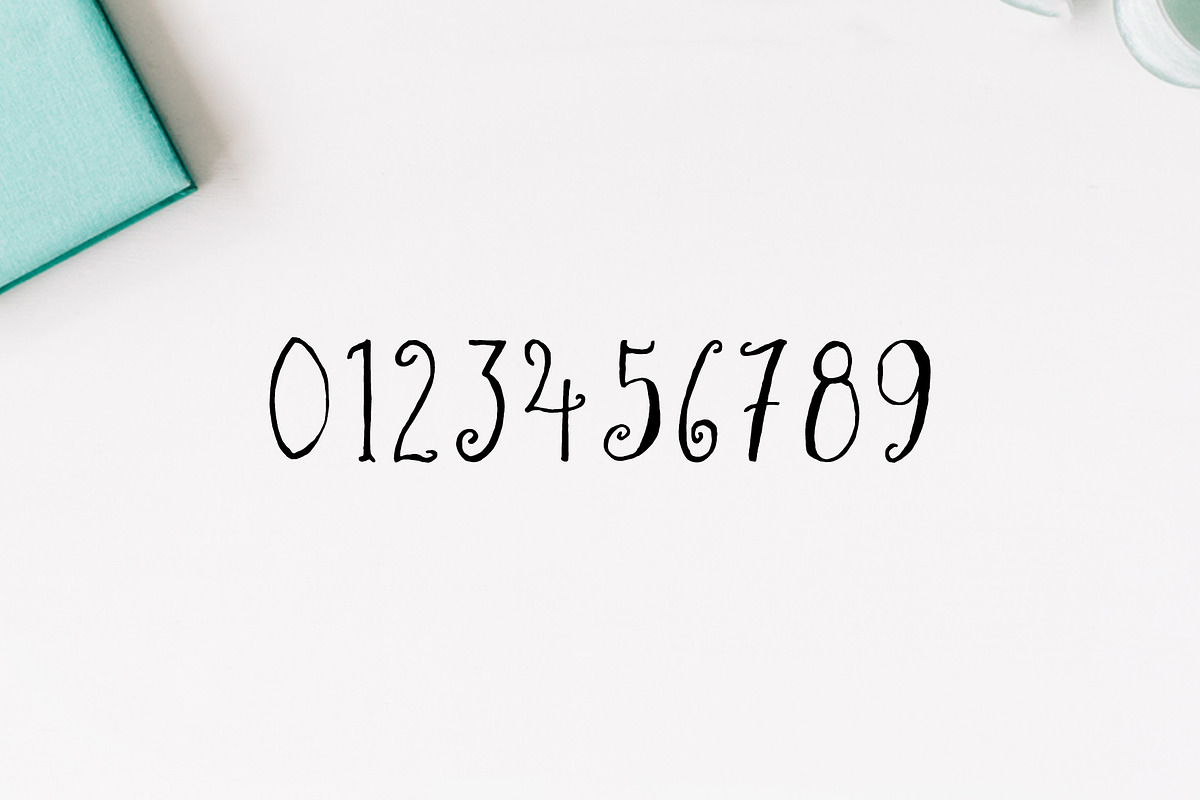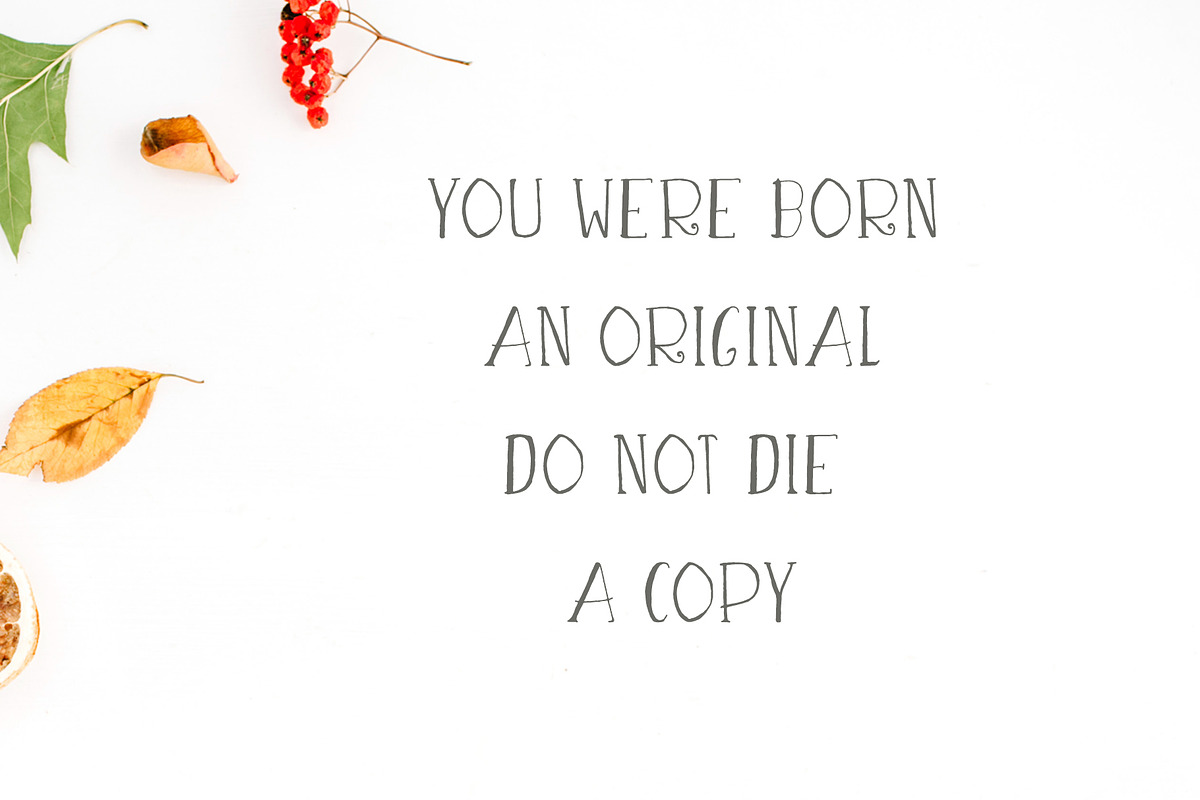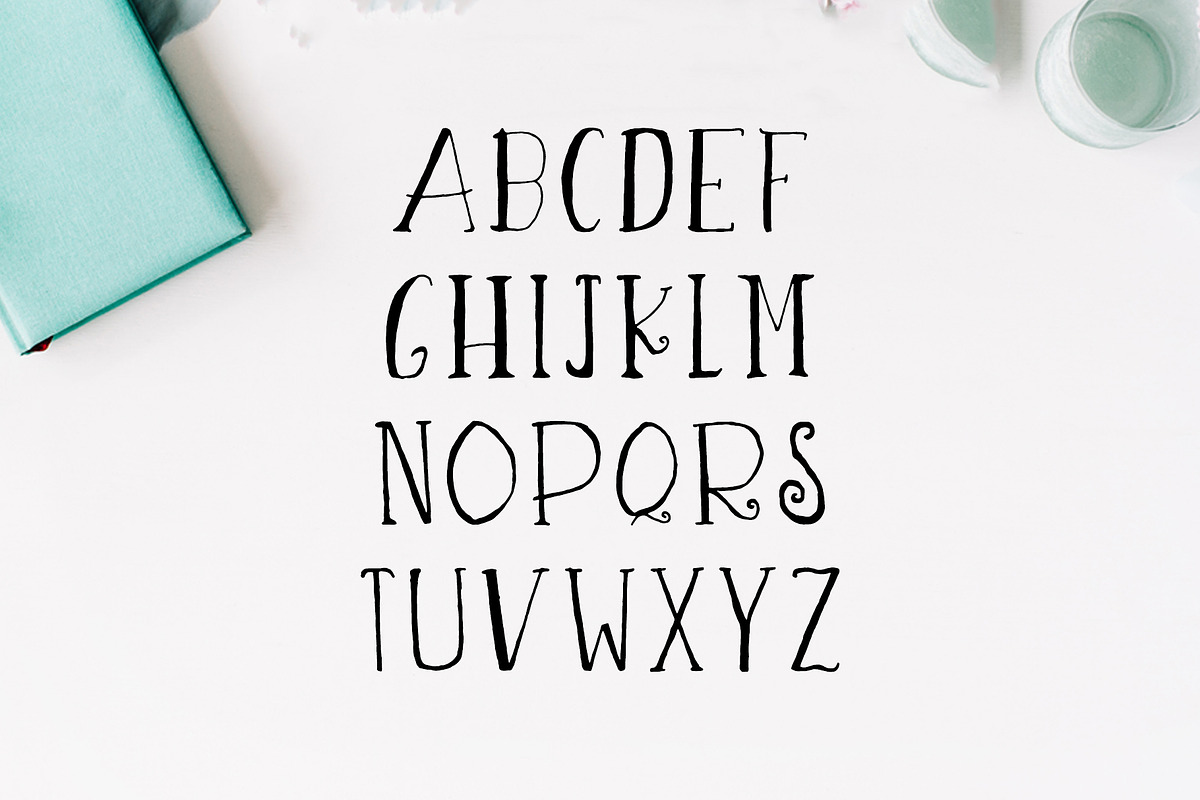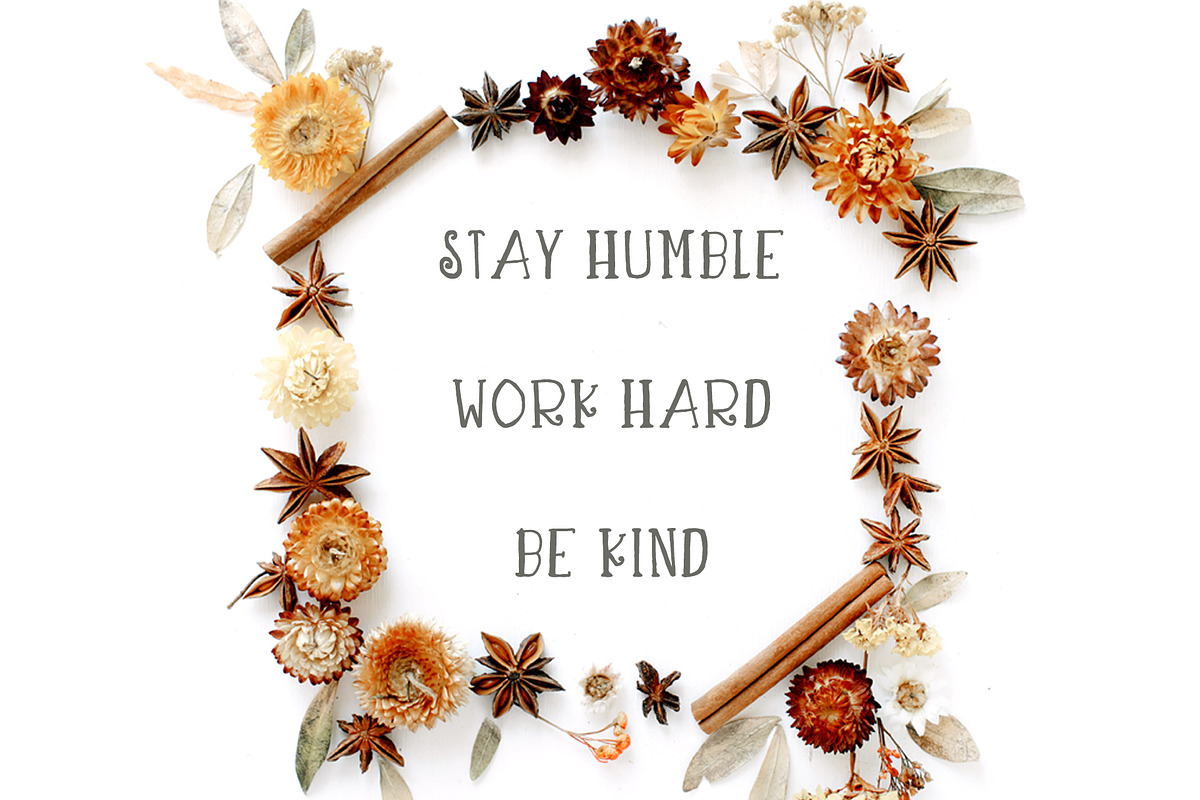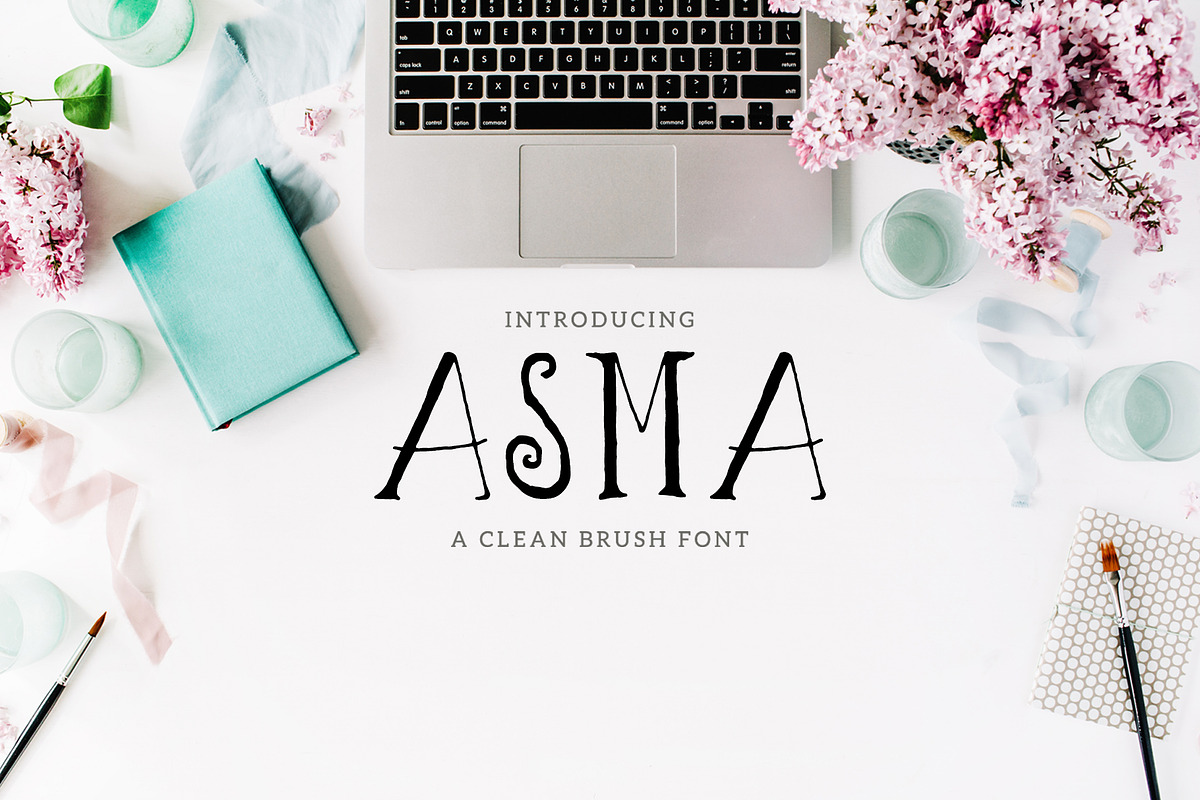
Asma Brush 3 Font Family Pack
Asma Brush 3 Font Family Pack by Creativetacos is a font selected for branding, posters, packaging, typography.
- Asma Script Typeface is a beautiful handwritten font which contains 3 weights and that is specifically designed for minimal projects.
- Regular, Italic and Outline Weights
Asma Brush 3 Font Family Pack by Creativetacos fits naturally into Branding, posters, packaging, typography.